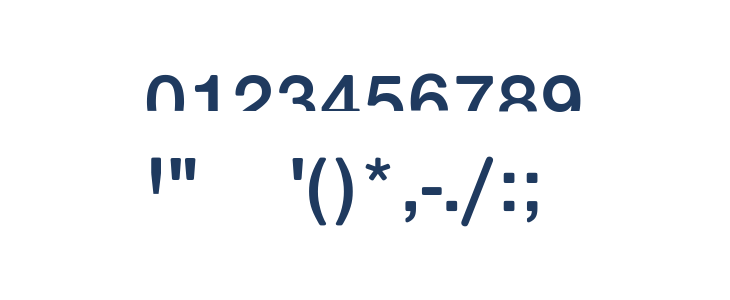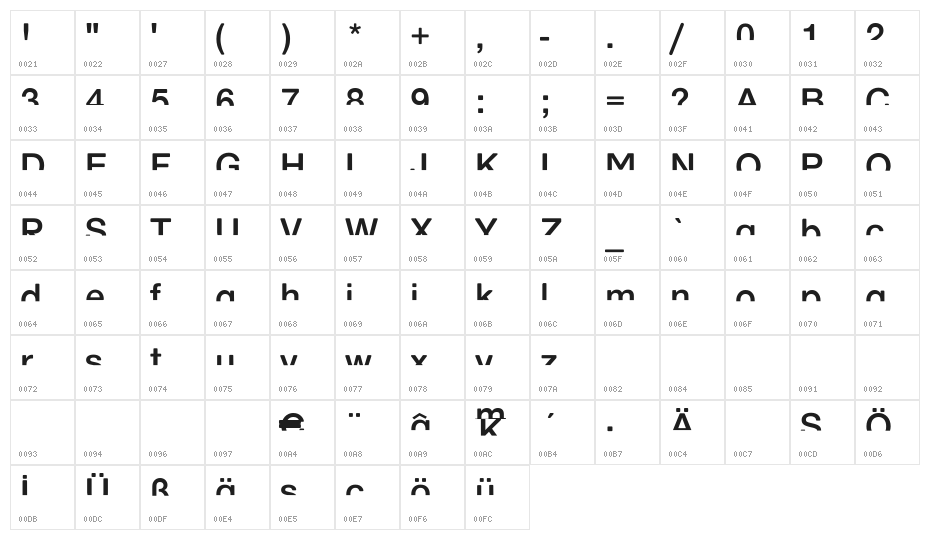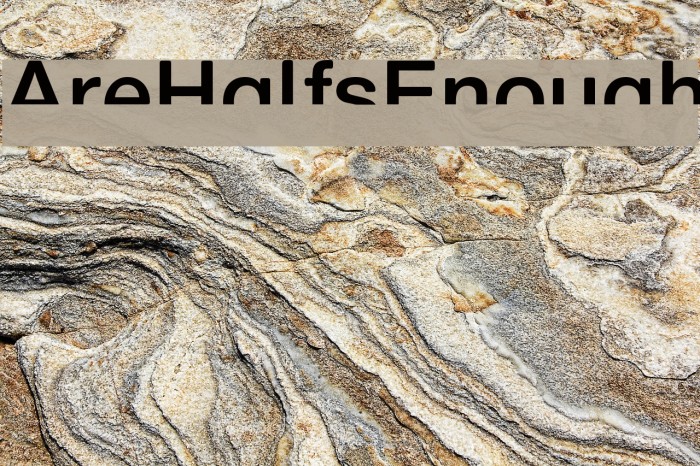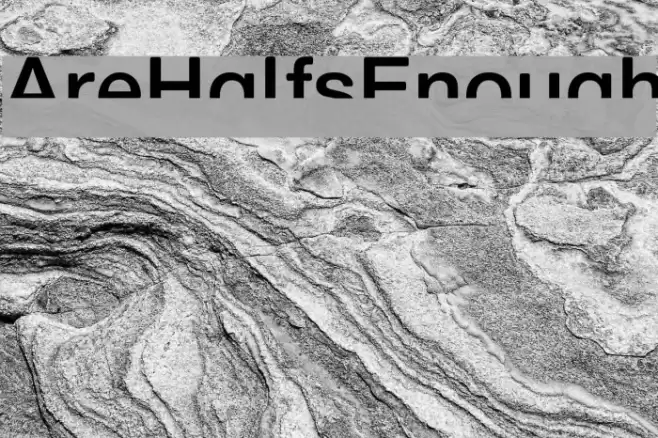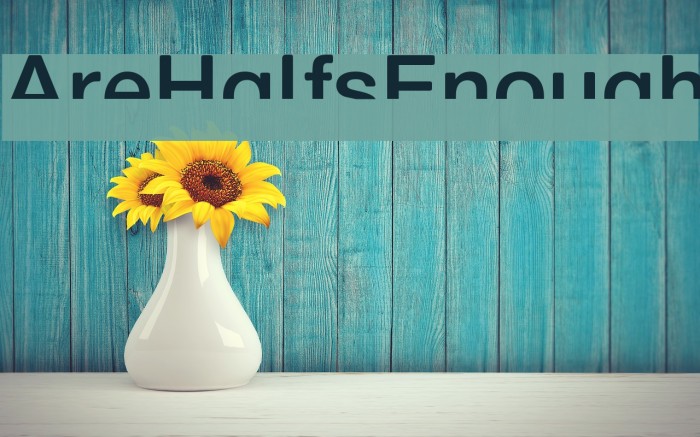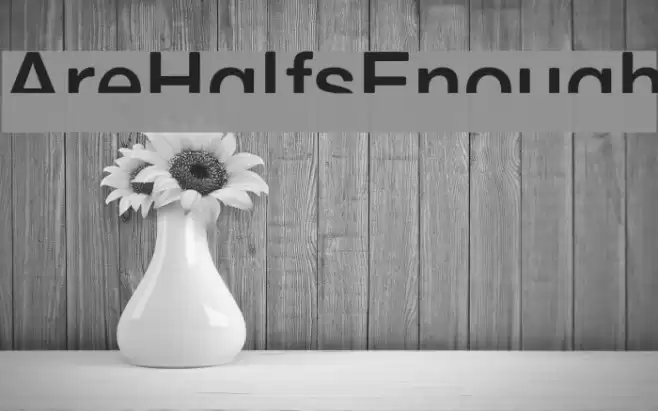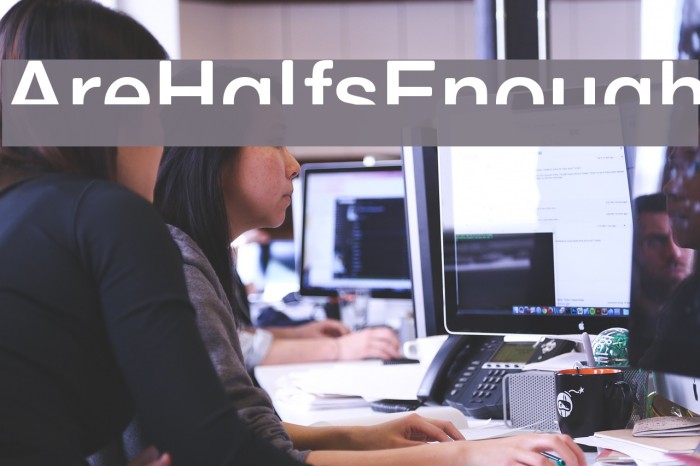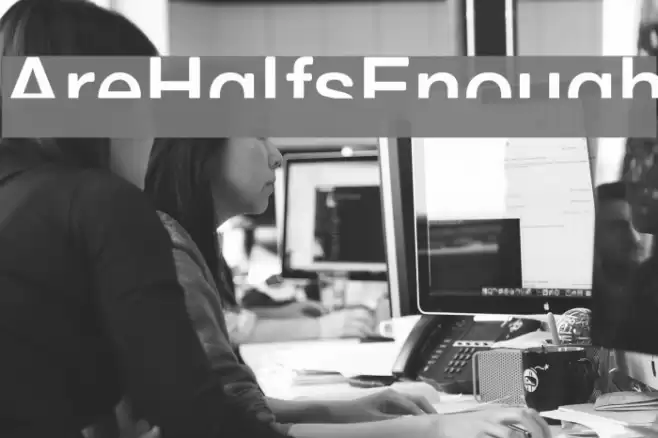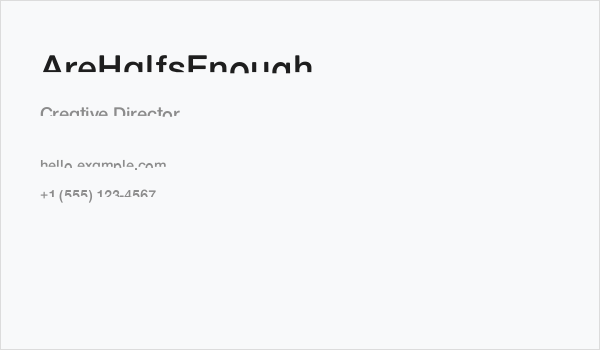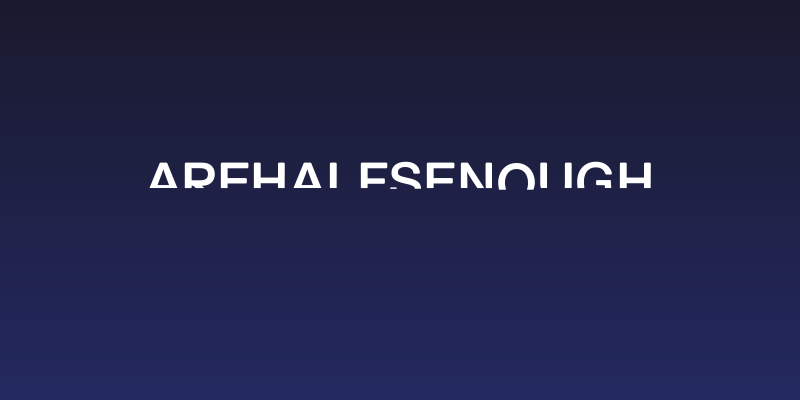
AreHalfsEnough Font
AreHalfsEnough Description
This font features a modern and unique design with a distinctive cut-off style that gives it a futuristic and edgy appearance. The uppercase and lowercase letters are bold and geometric, with a consistent stroke width that maintains a clean and uniform look. The numerals follow the same design principles, ensuring a cohesive appearance across all characters. Special characters are also included, maintaining the font's overall aesthetic. The font's design is both eye-catching and versatile, making it suitable for a variety of creative projects.
| Proposed Projects | Ideal for branding, advertising, posters, and digital media that require a modern and distinctive look. |